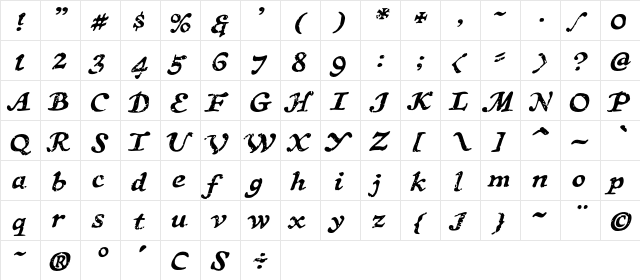
CCTreasureTroveAged Italic
| Foundry | Active Images |
| Designer | John Roshell |
Design Context for CCTreasureTroveAged Typeface
CCTreasureTroveAged wears its vintage influences proudly, with letterforms that recall mid-century signage, classic packaging, and nostalgia-driven design. The slanted form adds forward momentum and visual energy.
Ideal for diner signage, record shop branding, 70s/80s-themed projects, and heritage product labels.
Font Pairing: Combine CCTreasureTroveAged with a simple slab or neutral sans — period-accurate companions reinforce the vintage feel without competing for attention.
Pro Tip: Lean into CCTreasureTroveAged's period character by pairing it with aged paper textures, muted colour palettes, and vintage illustration styles.